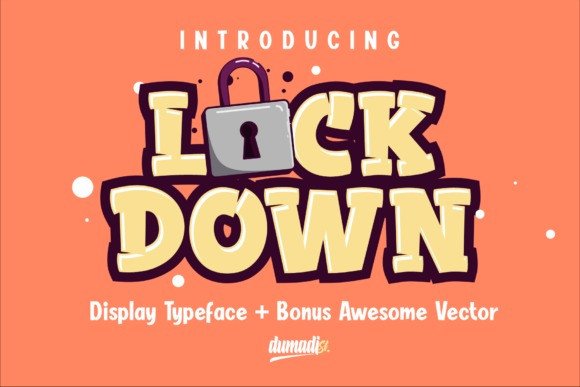
Lockdown Display Font
Lockdown embodies fun, quirkiness and authenticity. This charming display font will turn any creative idea into a true standout.